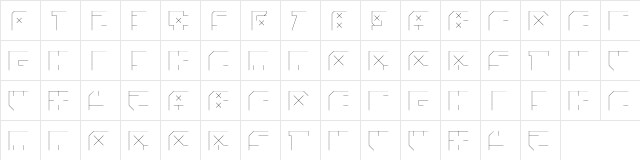
andrefistshdw Medium (normal)
Design Context for andrefistshdw Typeface
andrefistshdw is a composed and adaptable typeface that performs quietly and consistently across a wide range of design contexts.